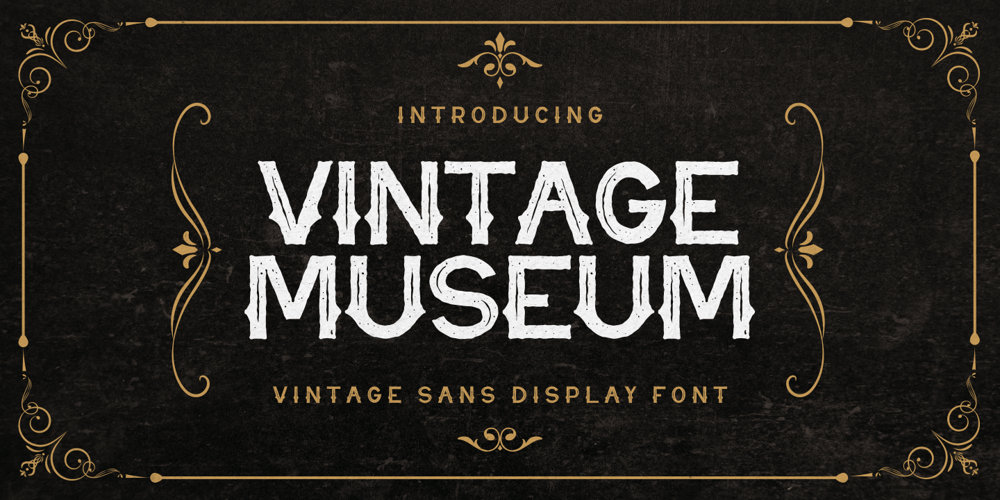
Vintage Museum Font Family was designed by Putra Novembria Candra Kusuma and published by Putracetol. Vintage Museum contains 1 styles and family package options. Vintage Museum – Vintage Sans Display Font. Vintage Museum is inspired by the classic font style and elegant sans. Vintage Museum font makes for more good display, classic and retro lively. Vintage Museum has a surprise from alternate that will make your work even more beautiful.Vintage Museum is perfect for a professional touch which makes it even more unique and classic. But Vintage Museum is also suitable for logos, branding, greeting cards, invitation cards, advertisements, titles, healines, book titles, stickers, packaging, quotes, posters, t-shirts/apparel, billboards and others.The alternative characters were divided into several Open Type features such as Swash, Stylistic Sets, Stylistic Alternates, Contextual Alternates, and Ligature. The Open Type features can be accessed by using Open Type savvy programs such as Adobe Illustrator, Adobe InDesign, Adobe Photoshop Corel Draw X version, And Microsoft Word. This font is also support multi language.